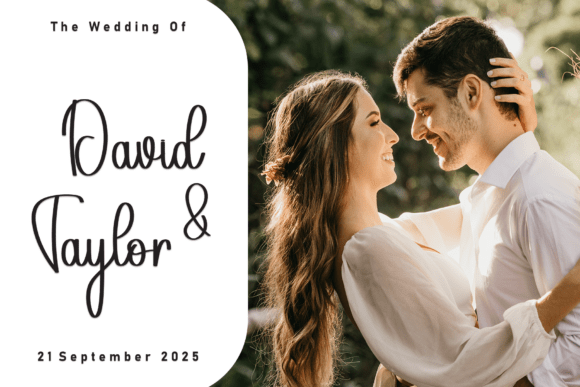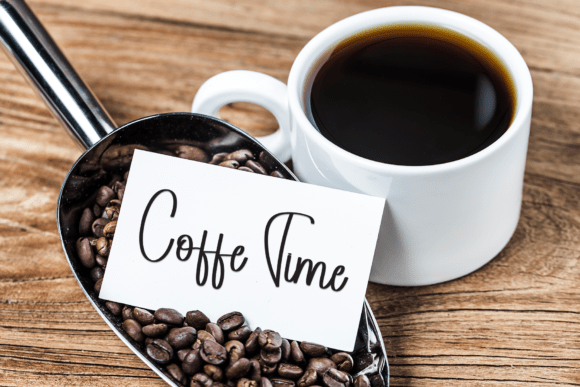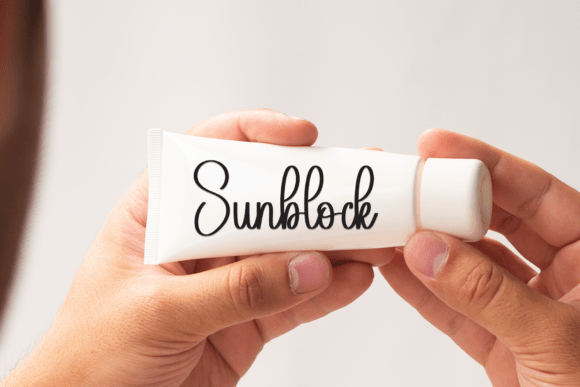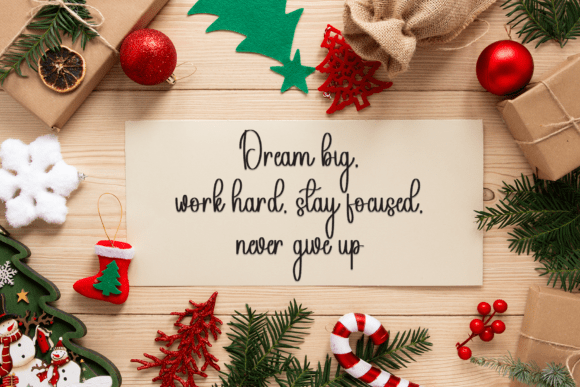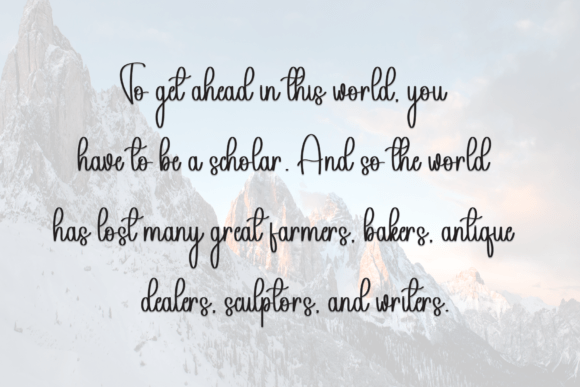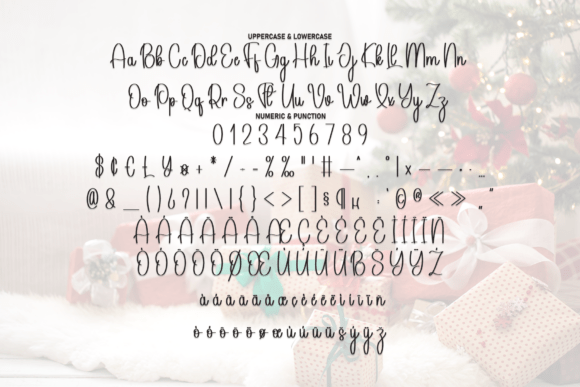
Unwrapping the Magic of the Christmas Birthday Font
As the holiday season approaches, many of us find ourselves rummaging through our storage boxes, searching for that one special decoration or gift to make the occasion truly unforgettable. For designers, this time of year can be a creative goldmine, where the possibilities for festive branding and design are endless. And at the heart of it all is a font that embodies the essence of the season: the Christmas Birthday Font.
With its fluid brush strokes, dynamic curves, and expressive letterforms, the Christmas Birthday Font is a stylish script font that exudes artistic flair and contemporary elegance. Whether you’re crafting a logo, invitation, or social media graphic, this font adds a creative and sophisticated touch to any design. Its natural flow and vibrant character deliver both visual impact and versatility, making it an invaluable asset for designers looking to make a lasting impression this holiday season.
Key Features of Christmas Birthday Font
- Font Family: Christmas Birthday Font is a unique, hand-drawn font family designed specifically for festive occasions.
- Character Set: The font family includes a wide range of characters, including uppercase and lowercase letters, numbers, punctuation marks, and special characters.
- Unique Characteristics: The font features a distinctive, hand-drawn design with intricate details and ornaments, making it perfect for adding a touch of whimsy and festivity to your designs.
Designer Review: Christmas Birthday Font
First off, I want to say that this font is perfect for those who love the holiday season. ✨ It’s a great choice for Christmas-themed designs, party invitations, and even birthday cards. The font’s playful and festive vibe is infectious, making it a great addition to any winter-themed project.
- ⚠️ Limited character set: The font only includes uppercase and lowercase letters, as well as some basic punctuation marks. This may limit its use for longer blocks of text.
- ⚠️ Not suitable for formal designs: The font’s playful and festive vibe may not be suitable for formal or professional designs.
Overall, I think the Christmas Birthday Font is a great addition to any designer’s toolkit. While it may have some limitations, its versatility and festive vibe make it a great choice for holiday-themed projects.
Use the “Christmas Birthday Font” to add a festive touch to your designs, invitations, and cards.
Pair the font with other holiday-themed elements, such as snowflakes, holly, or Christmas trees.
Experiment with different font sizes, colors, and styles to create a unique and eye-catching design.
Christmas birthday invitations and party invitations
Christmas cards and holiday greeting cards
Holiday-themed social media